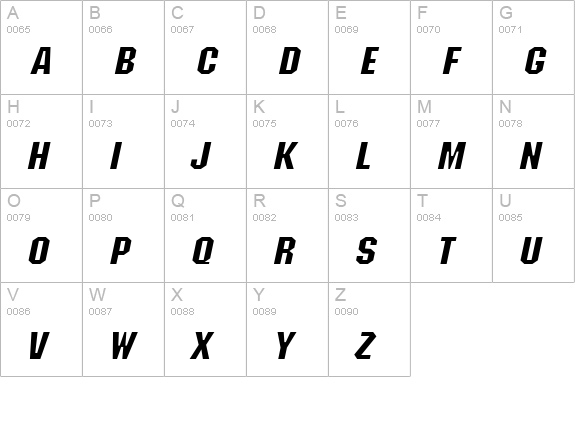
Block-Extended Italic Font Details
Block-Extended Italic is a distinctive, extended-width, italic variant in the Block typeface family \xE2\x80\x94 well suited to design and typography projects.
The Block-Extended Italic font is a modern and sleek typeface that exudes sophistication and style. Its unique italic design adds a touch of elegance to any project, making it perfect for use in branding, advertising, and editorial design. This versatile font is ideal for creating eye-catching headlines, logos, and promotional materials. With its bold, blocky letterforms and subtle slant, Block-Extended Italic is sure to make a statement and leave a lasting impression on your audience. Best of all, Block-Extended Italic is available for free download at FontsMarket.com. Whether you're a designer looking to add a fresh new font to your collection or a business owner in need of a standout typeface for your branding, Block-Extended Italic is the perfect choice. Download it today and take your designs to the next level!